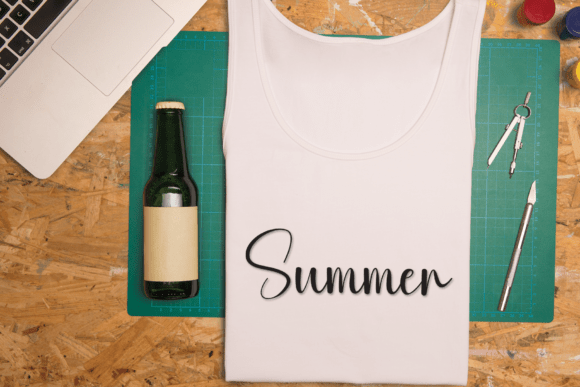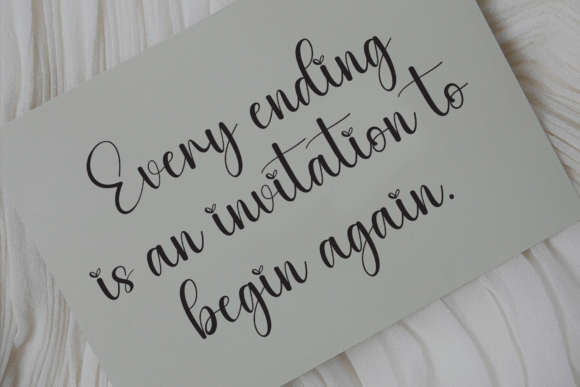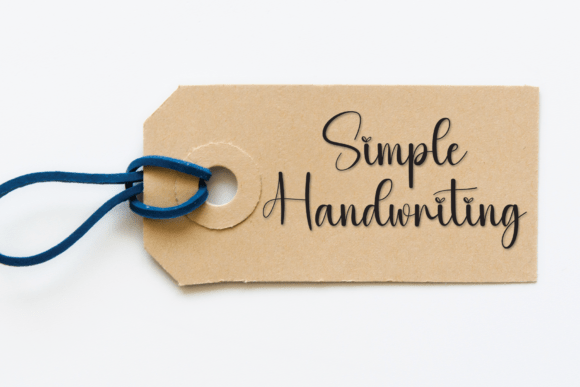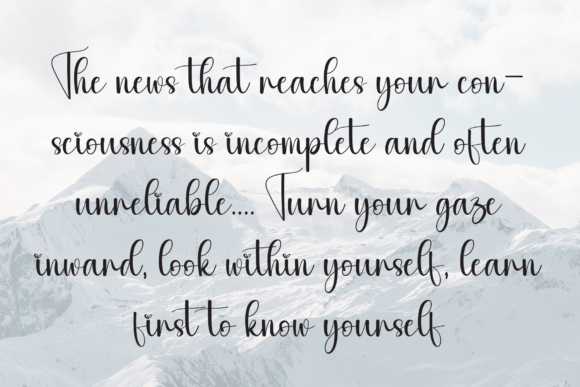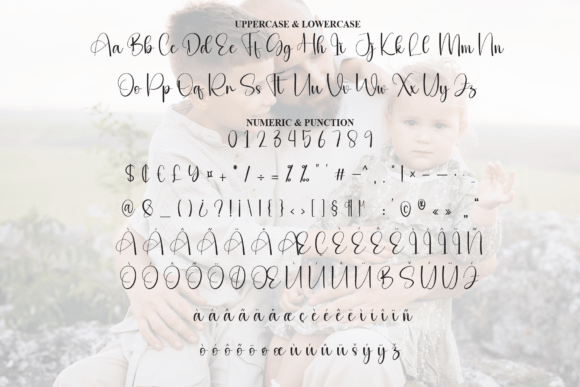
Infuse Your Designs with Heartwarming Intimacy using Daddyboho Font
Are you looking for a font that can add a touch of warmth and intimacy to your designs? Look no further than Daddyboho, an enchanting handwritten script font that celebrates the beauty of familial bonds. This stunning display typeface is perfect for designers and crafters who want to create visual assets that exude a sense of love, care, and connection.
The Unique Characteristics of Daddyboho Font
Daddyboho font features fluid, elegant vertical lines that are beautifully anchored by a relaxed, dancing baseline. This unique combination gives the font a distinctive look that is both polished and artisanal. The fluid lines add a touch of sophistication, while the relaxed baseline gives the font a friendly, approachable feel.
One of the standout features of Daddyboho is its ability to convey a sense of warmth and intimacy. The font’s elegant lines and gentle curves evoke a sense of love and connection, making it perfect for designs that celebrate family, relationships, and special moments.
Perfect for Family-Centric Designs
Daddyboho font is an extraordinary choice for family photography watermarks, Mother’s and Father’s Day greeting cards, custom nursery wall art, and cozy lifestyle blog headers. The font’s heartwarming and intimate feel makes it perfect for designs that celebrate the beauty of family and relationships.
Whether you’re a designer looking to create custom watermarks for family photos or a crafter making handmade greeting cards, Daddyboho font is the perfect choice. The font’s elegant and polished look will add a touch of sophistication to your designs, while its warm and intimate feel will make them truly special.
Adding Polished Design Intelligence and Artisanal Warmth
Daddyboho font delivers a profound sense of polished design intelligence and legendary artisanal warmth to your visual assets. The font’s unique combination of fluid lines and relaxed baseline gives it a distinctive look that is both sophisticated and approachable.
When used in digital titles, Daddyboho font can transform them into sentimental expressions of love. The font’s elegant lines and gentle curves add a touch of warmth and intimacy, making it perfect for designs that celebrate special moments and relationships.
Why Designers and Crafters Love Daddyboho Font
Designers and crafters love Daddyboho font for its unique combination of elegance and warmth. The font’s polished look and artisanal feel make it perfect for a wide range of design projects, from family photography watermarks to handmade greeting cards.
Here are just a few reasons why designers and crafters love Daddyboho font:
• Unique and distinctive look: Daddyboho font has a unique combination of fluid lines and relaxed baseline that sets it apart from other fonts.
• Warm and intimate feel: The font’s elegant lines and gentle curves evoke a sense of love and connection, making it perfect for designs that celebrate family and relationships.
• Polished design intelligence: Daddyboho font delivers a profound sense of polished design intelligence, making it perfect for designs that require a touch of sophistication.
• Legendary artisanal warmth: The font’s artisanal feel adds a touch of warmth and character to designs, making them truly special.
If you’re looking for a font that can add a touch of warmth and intimacy to your designs, look no further than Daddyboho. This enchanting handwritten script font is perfect for designers and crafters who want to create visual assets that celebrate the beauty of familial bonds.
With its unique combination of fluid lines and relaxed baseline, Daddyboho font delivers a profound sense of polished design intelligence and legendary artisanal warmth. Whether you’re creating family photography watermarks, handmade greeting cards, or custom nursery wall art, Daddyboho font is the perfect choice.